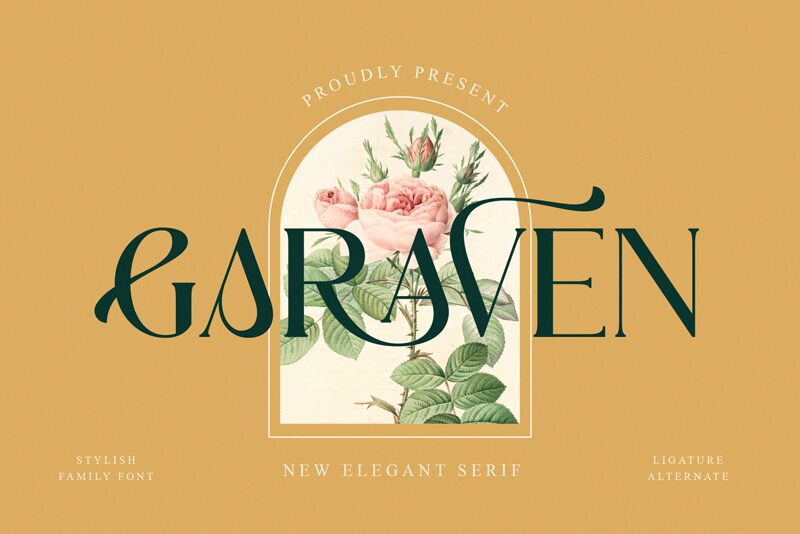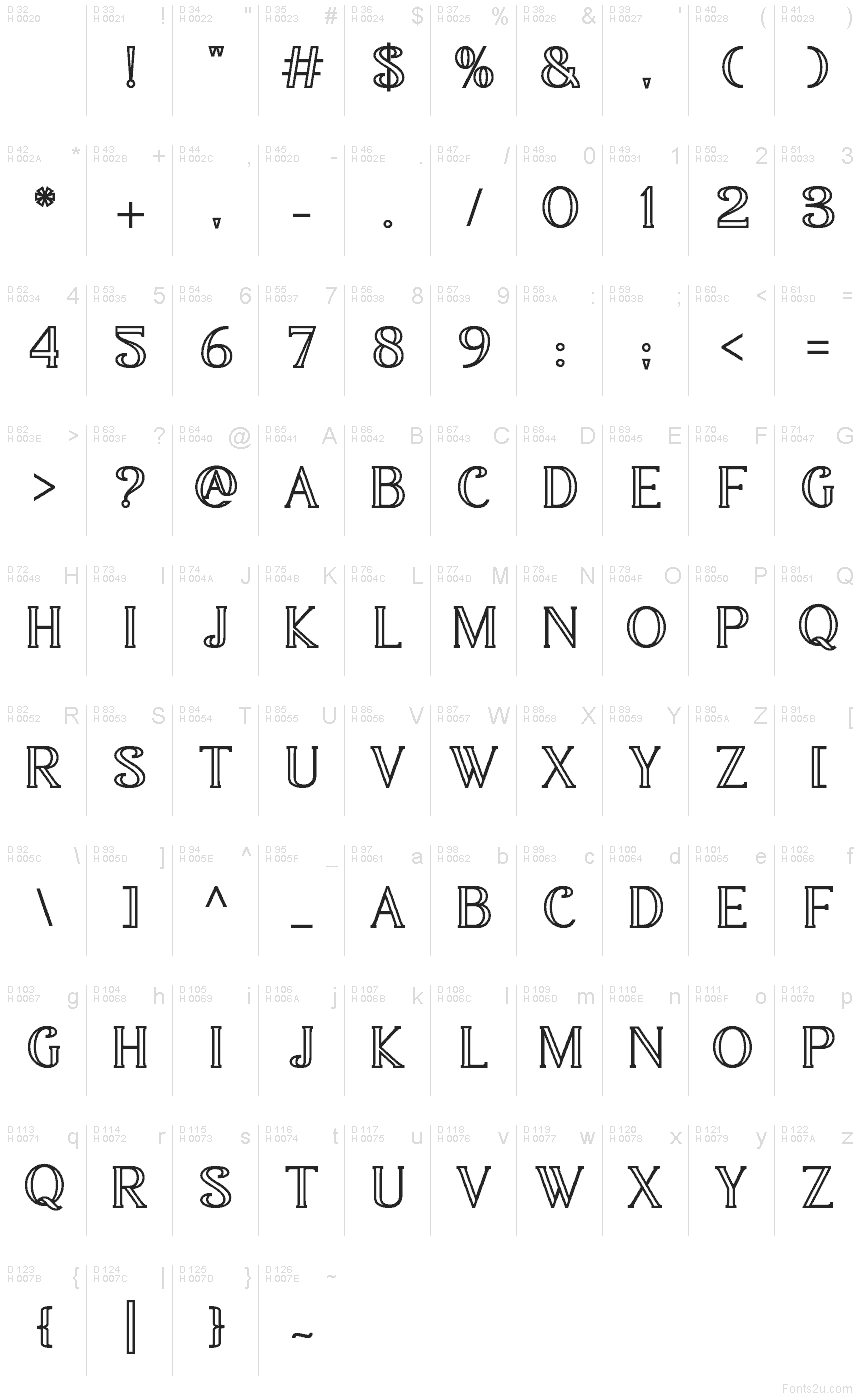
GARAVEN OUTLINE
Garaven Outline font by Muflieart is a free outlined serif typeface from the Garaven family that thrives on negative space. Its etched, double-line contours create a refined skeleton—crisp, airy, and elegantly structured—so headlines feel light yet pronounced. The rhythm is steady and confident, giving you that engraved look without heaviness.
Using Garaven Outline, you can craft boutique branding, editorial covers, packaging, event invitations, posters, and signage that feel sophisticated and modern. This free font shines when set large with a touch of extra tracking; pair it with a neutral grotesque or geometric sans to keep body copy clean and legible. The open forms invite color overlays, metallic foils, and subtle shadows for tasteful depth.